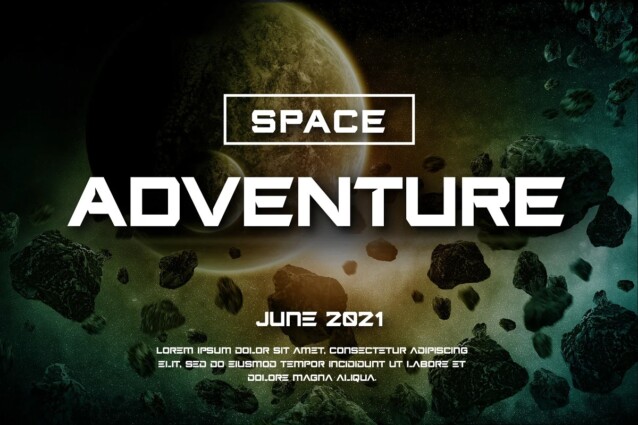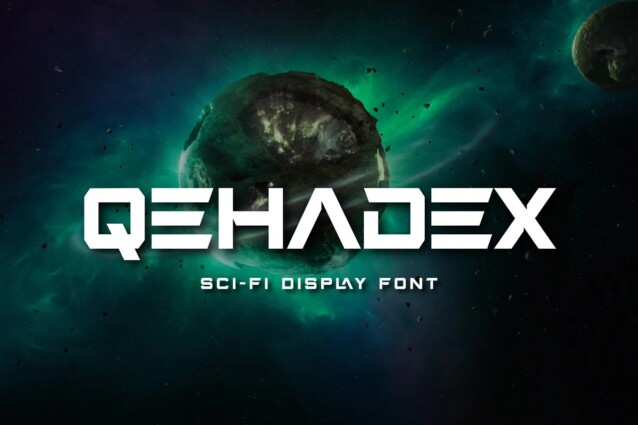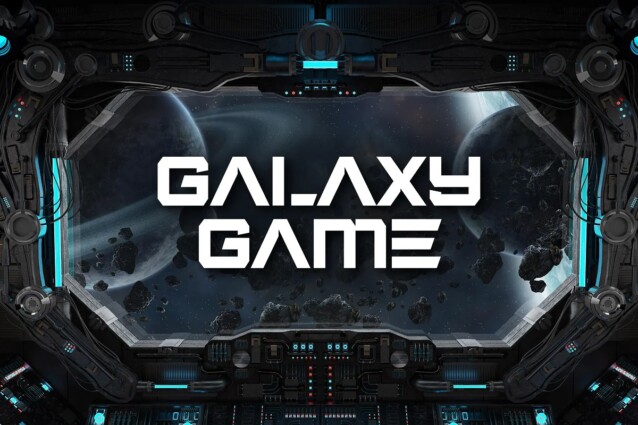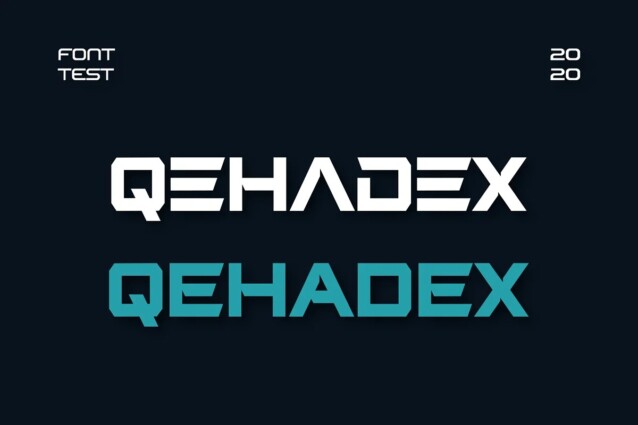
Qehadex Font
Qehadex Font is a typeface that embodies boldness, power, and strength. This font is ideally suited for a wide variety of projects, such as signature, stationery, logo, wedding, typography quotes, magazine or book covers, website headers, clothing, branding, packaging design, and more. Also, fashion-related branding or editorial design displays both masculine and feminine qualities.